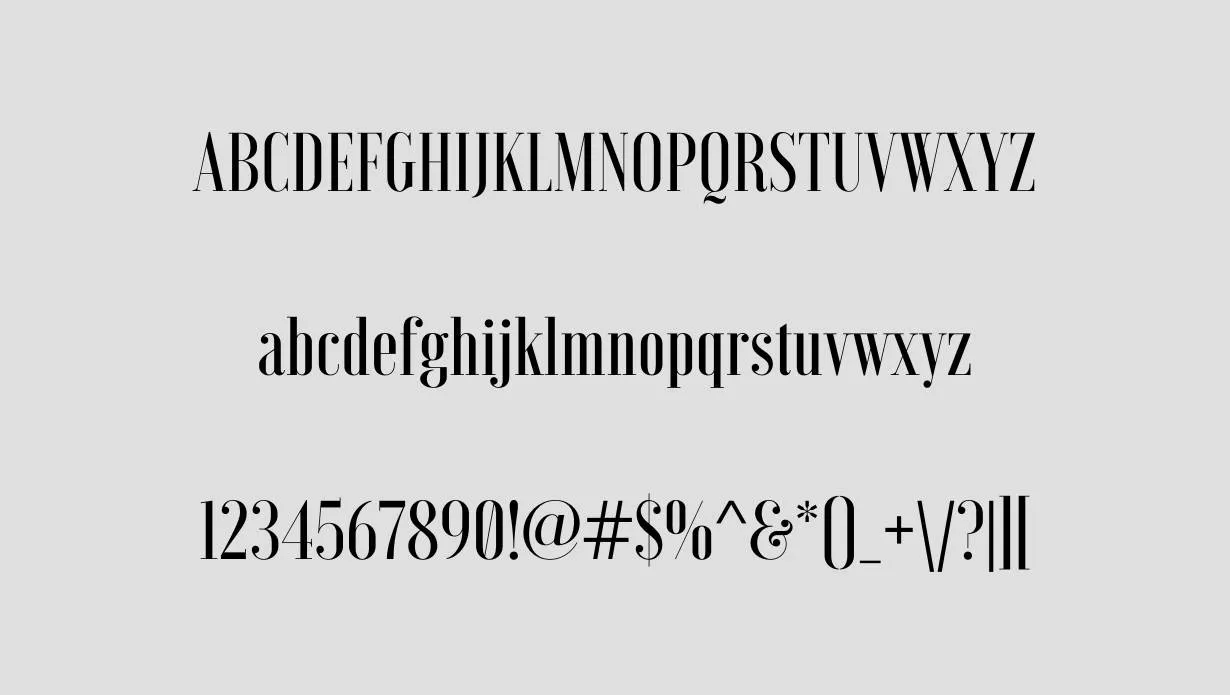
Shrift Voga Medium font is a sophisticated and modern typeface often used in Adobe CSS for branding, marketing materials, and digital designs. Its sleek and elegant appearance makes it suitable for various projects, from corporate presentations to fashion advertisements.
| Name | Shrift Voga Medium Font |
| Designer | Charles Daoud |
In Adobe CSS, it’s a popular choice for headlines, banners, and logos, providing a contemporary and professional look. In Microsoft Word, this font adds a touch of refinement to titles and headings, making documents stand out. Supported file formats for this font include TTF, OTF, WOFF, and WOFF2.